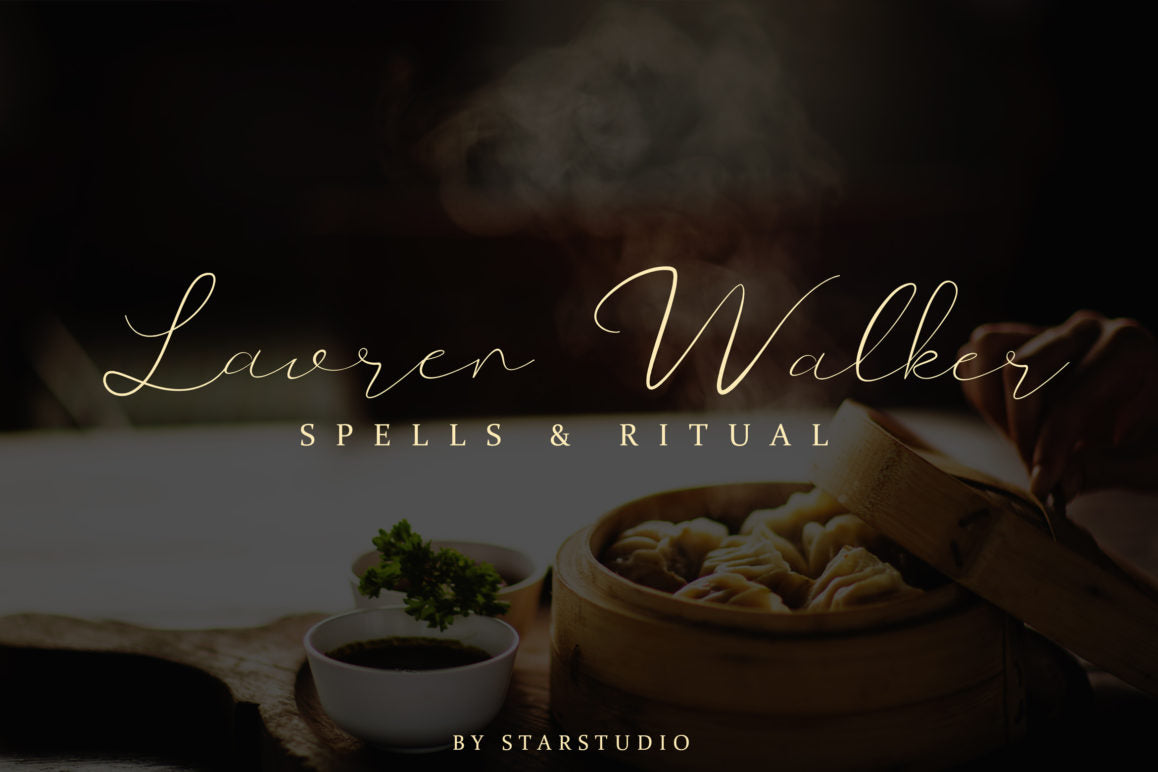
Catalan - Free Signature font
Grab this eye-watering free signature font into your repertoire. Give a boost to your designer life. Crella has featured this amazing and beautiful typeface. Easily amaze your audience with this beautiful font and make your graphic designs pop up from the crowd.